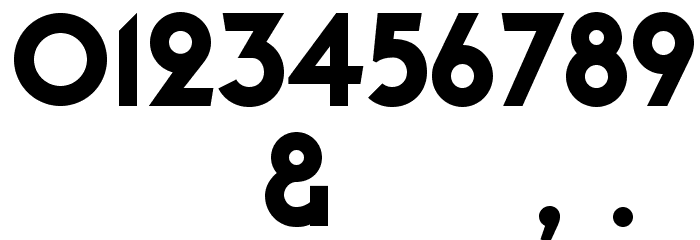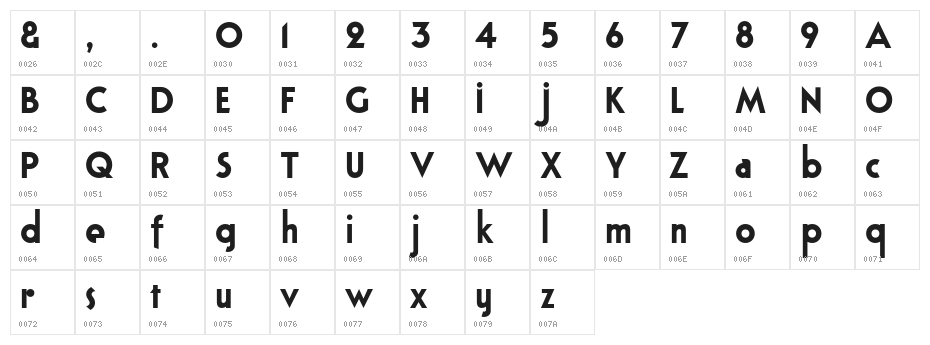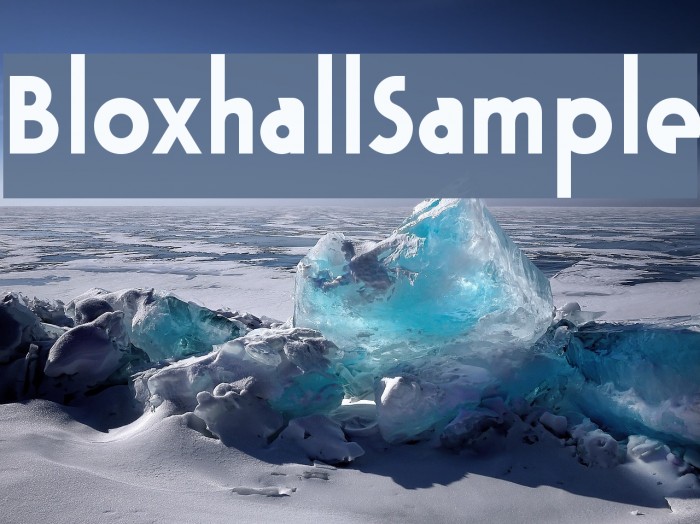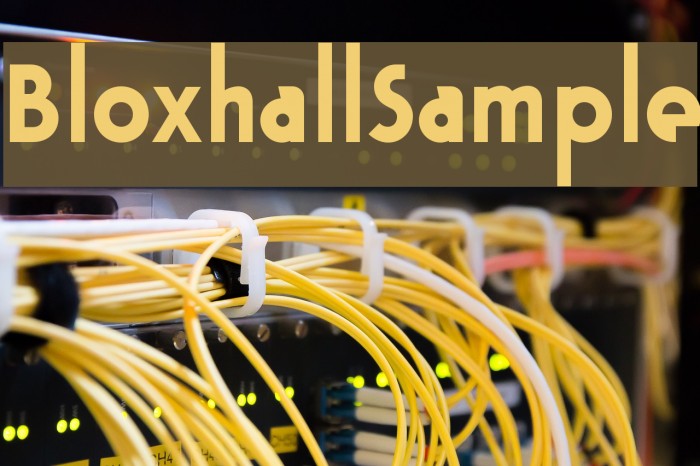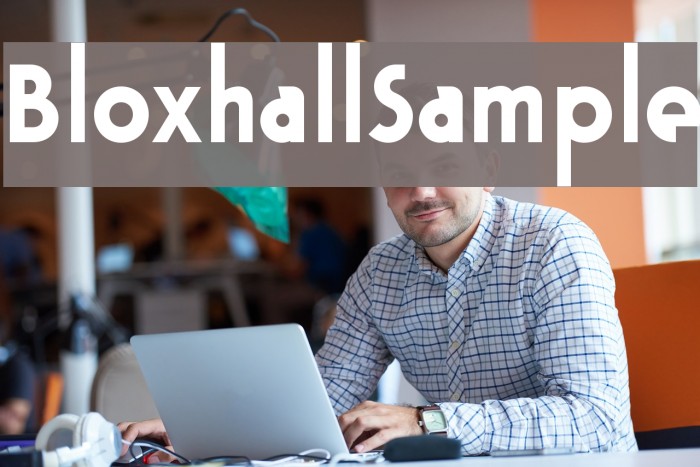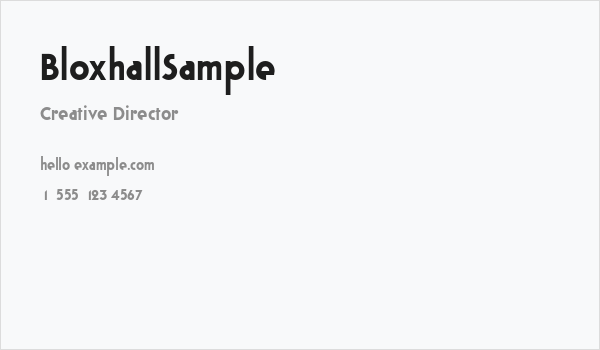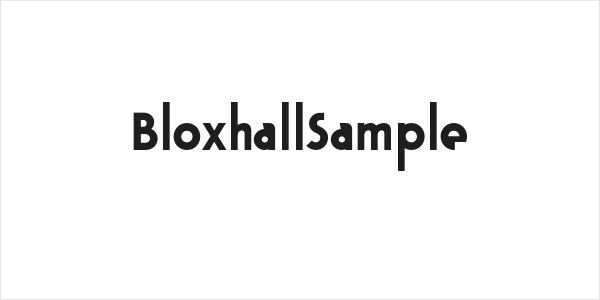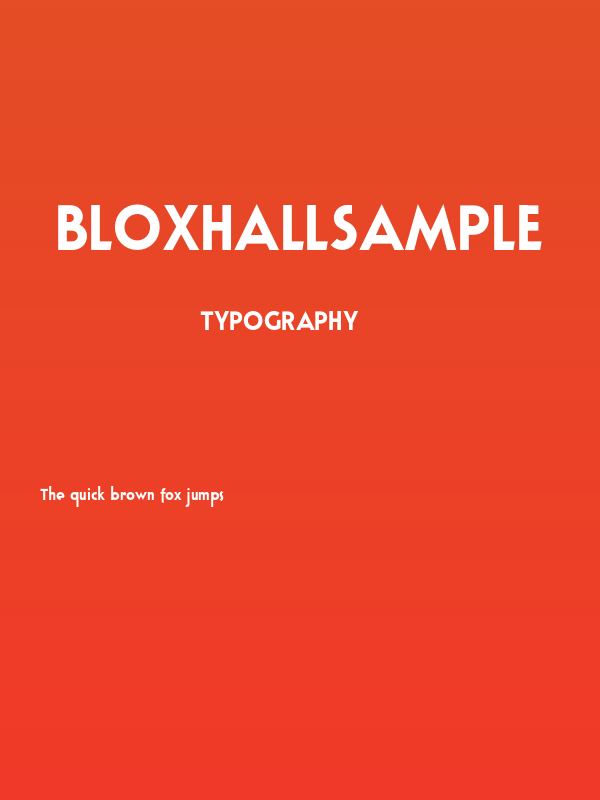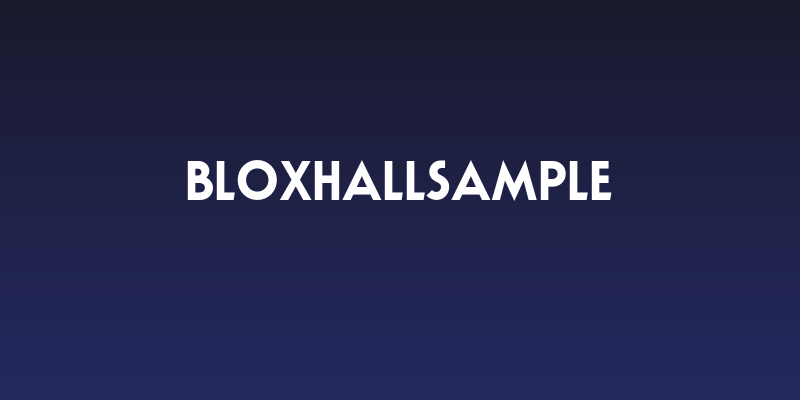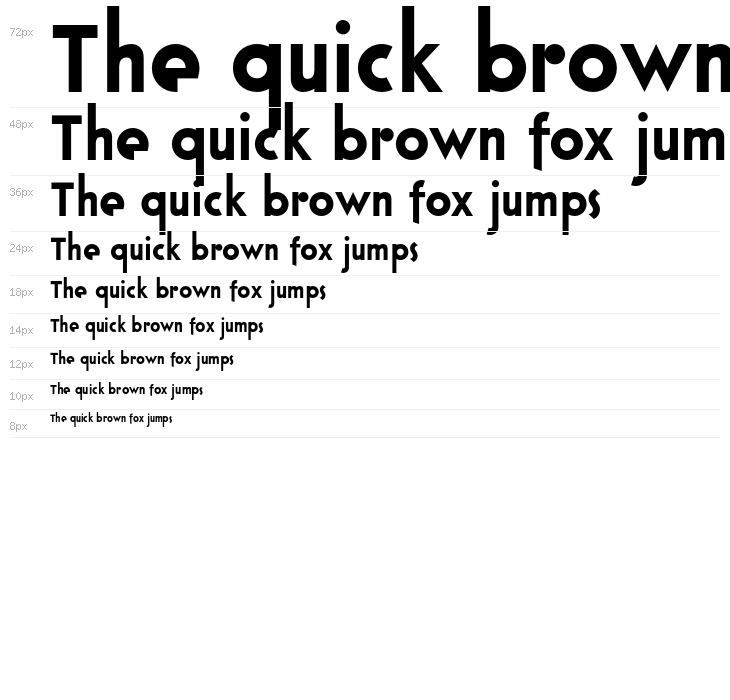
BloxhallSample Font
BloxhallSample Description
This font features a bold and geometric style with clean, sharp edges and a modern aesthetic. The uppercase letters are uniform in height, creating a strong and cohesive appearance. The lowercase letters maintain a similar geometric structure, with rounded elements that add a touch of softness to the overall design. The numerals are distinct and easy to read, following the same bold and geometric theme. Special characters are well-integrated, maintaining the font's consistent style. This font is ideal for projects that require a modern and impactful look.
| Proposed Projects | Ideal for branding, posters, headlines, and digital media that require a strong visual impact. |